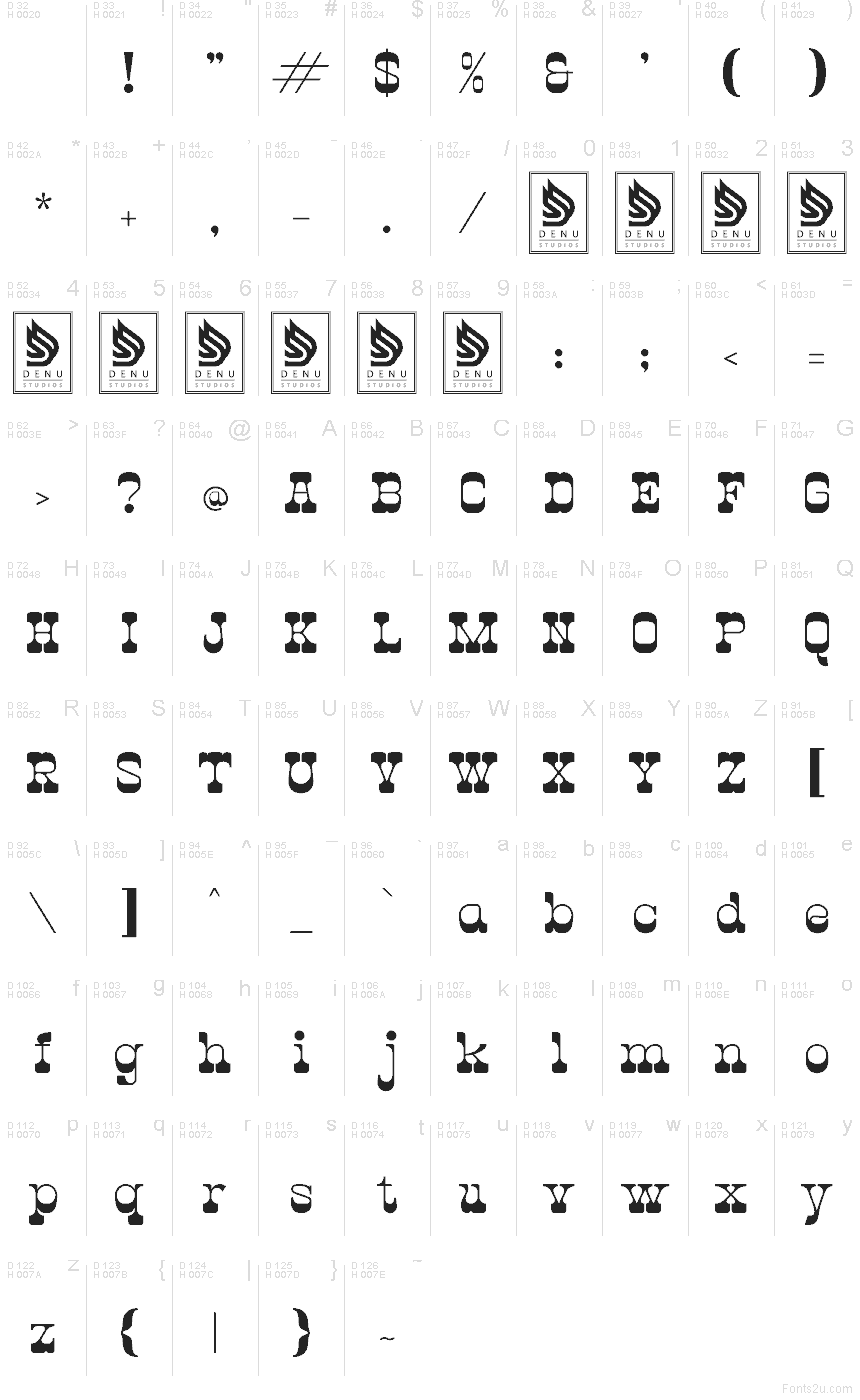
Hunting Ground by Denustudios is a free western display font with a soft, 1970s poster swagger. The letters pair heavy rounded slabs with pinched joins and broad curves, so the font feels simultaneously cowboy-rooted and groovy rather than strictly old saloon.
It fits branding for barbecue joints, craft soda labels, festival posters, vintage-minded packaging, and music merch where a free font needs a big, friendly pull. Use it for short headlines, title cards, cover lines, or logos, because those chunky silhouettes and inward-curving shapes make even a few words feel like a graphic element.